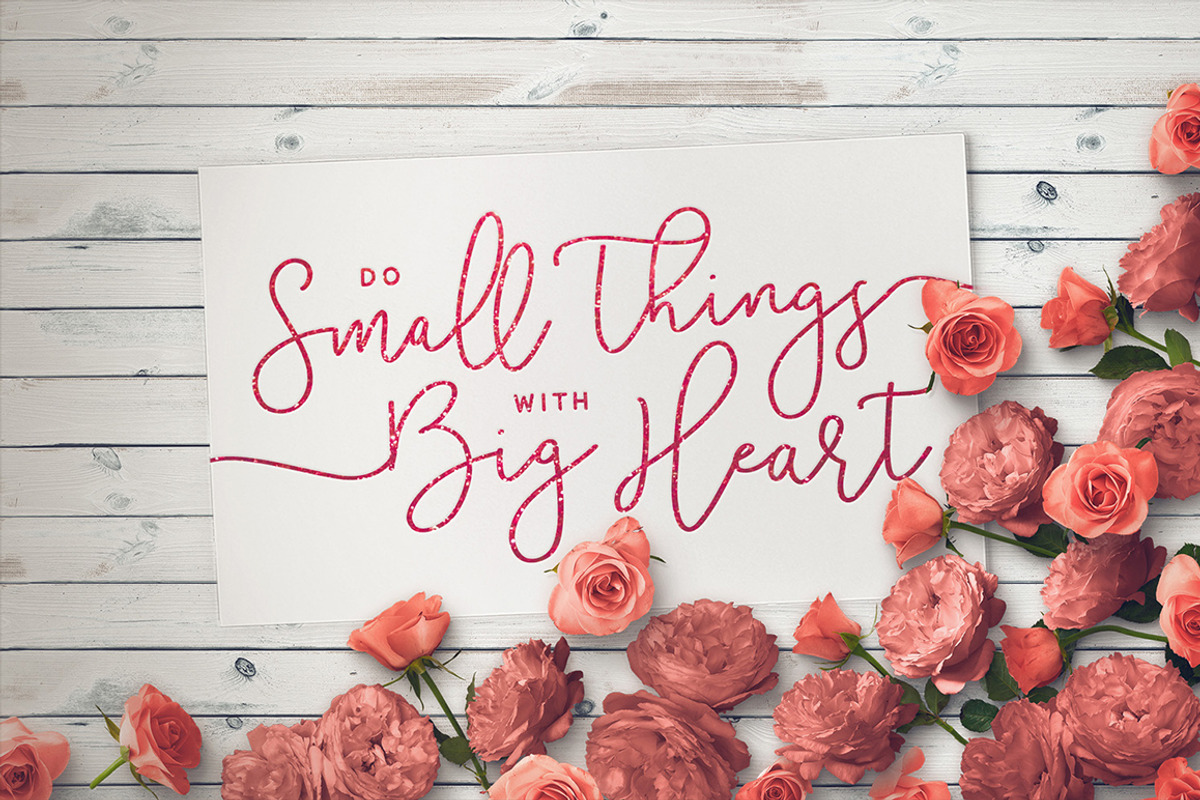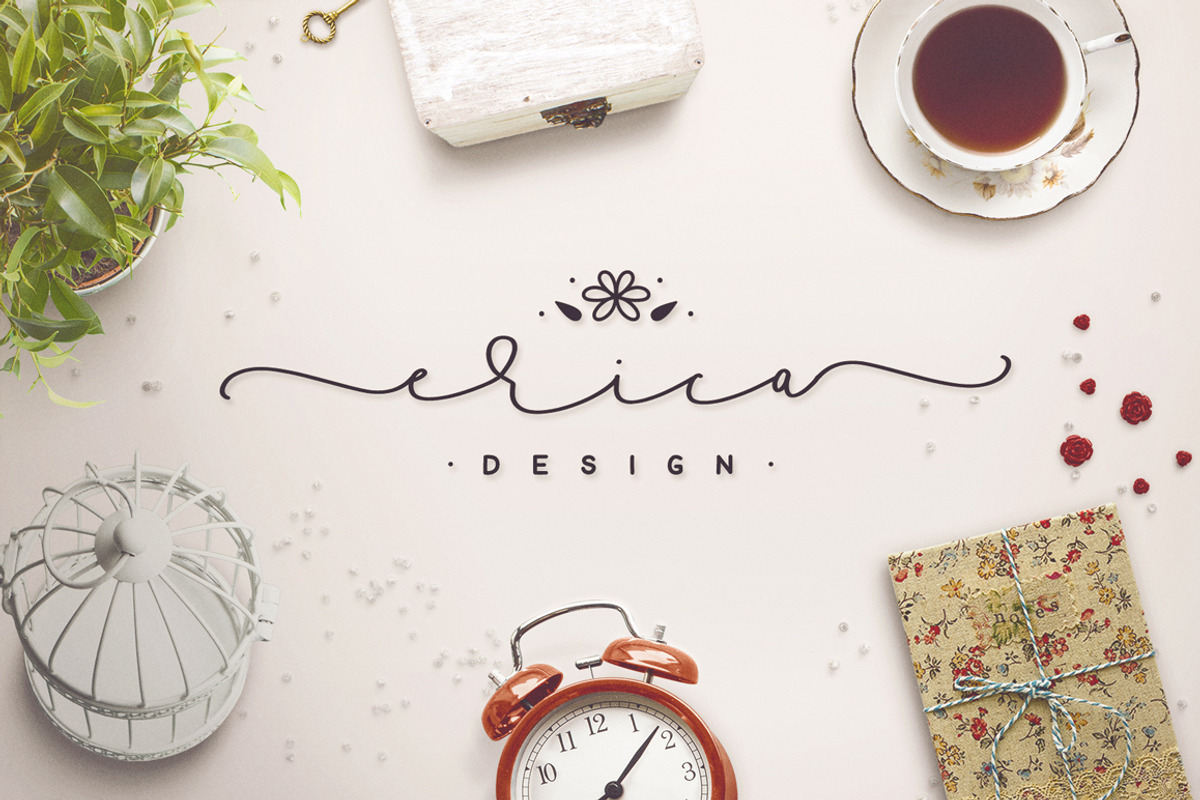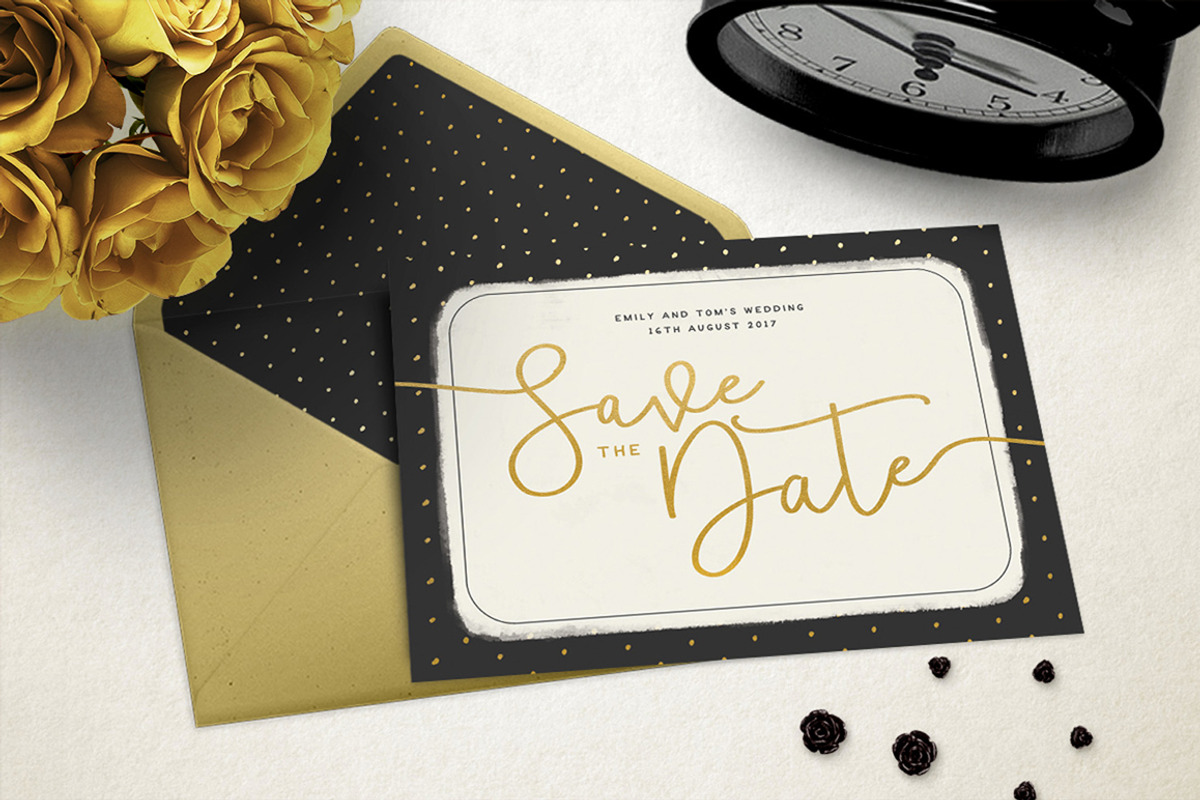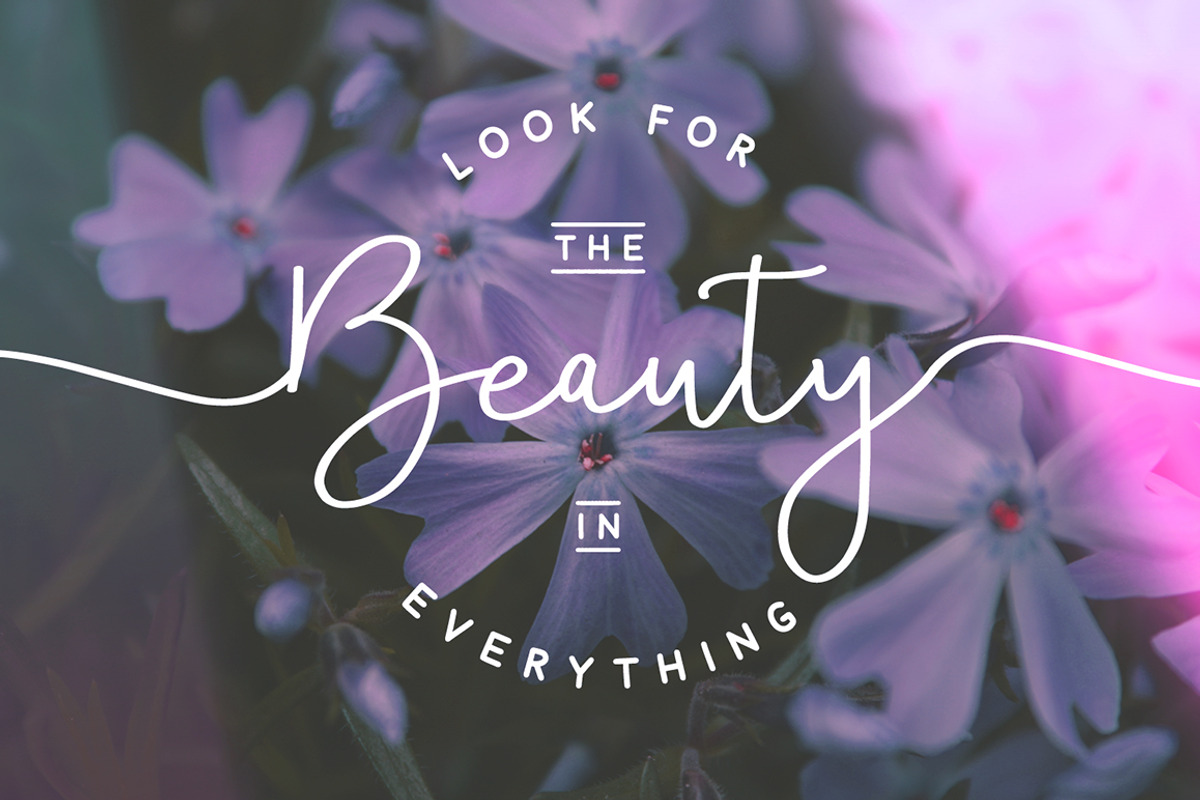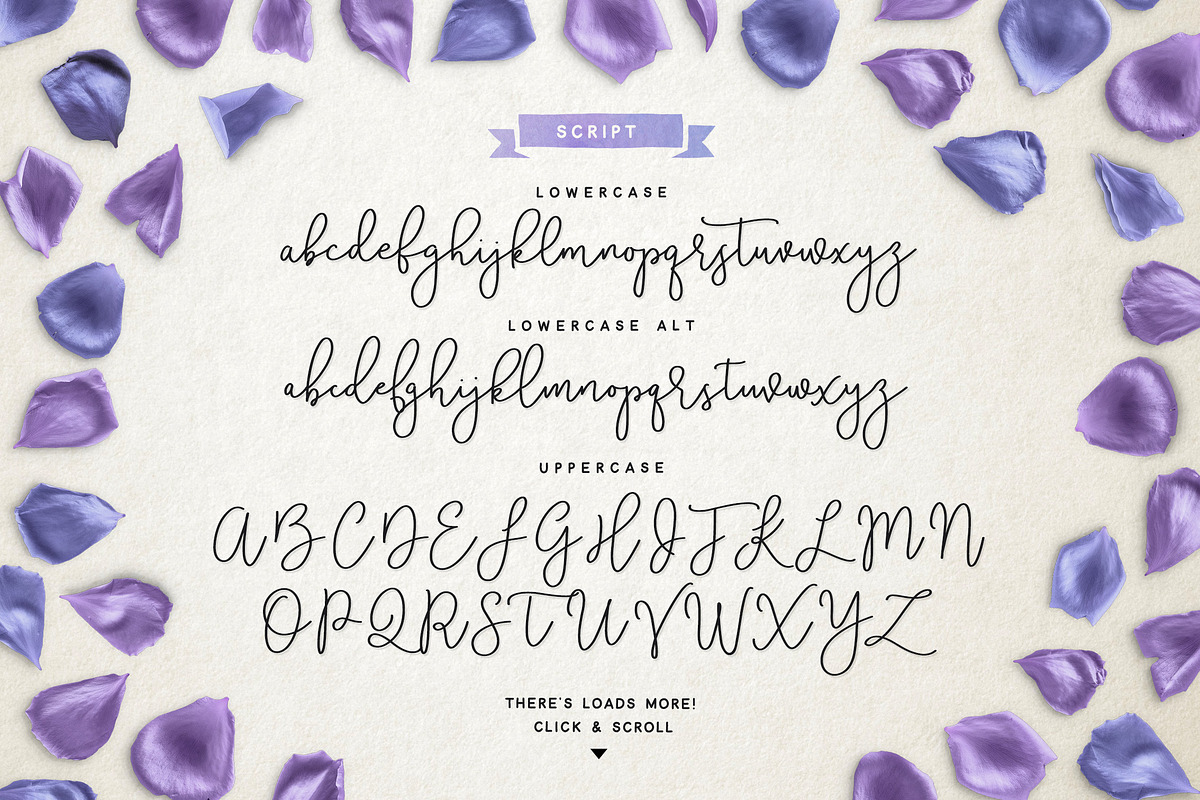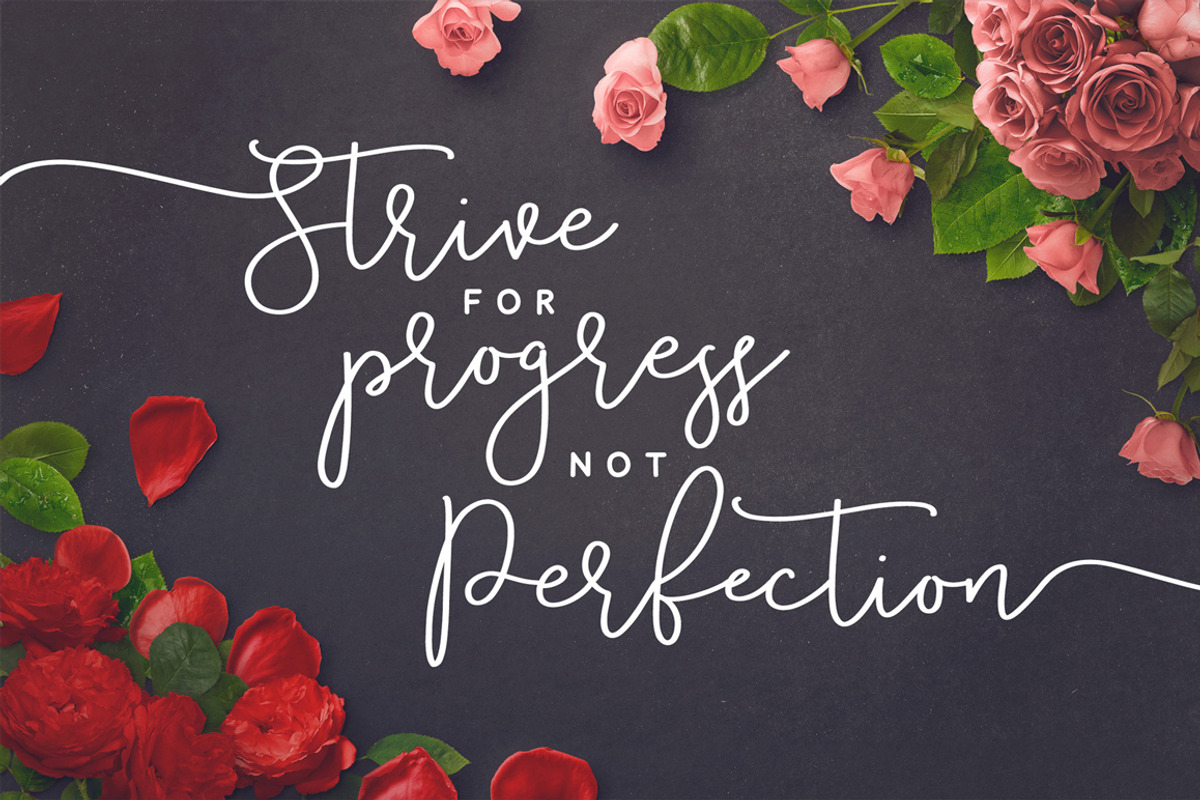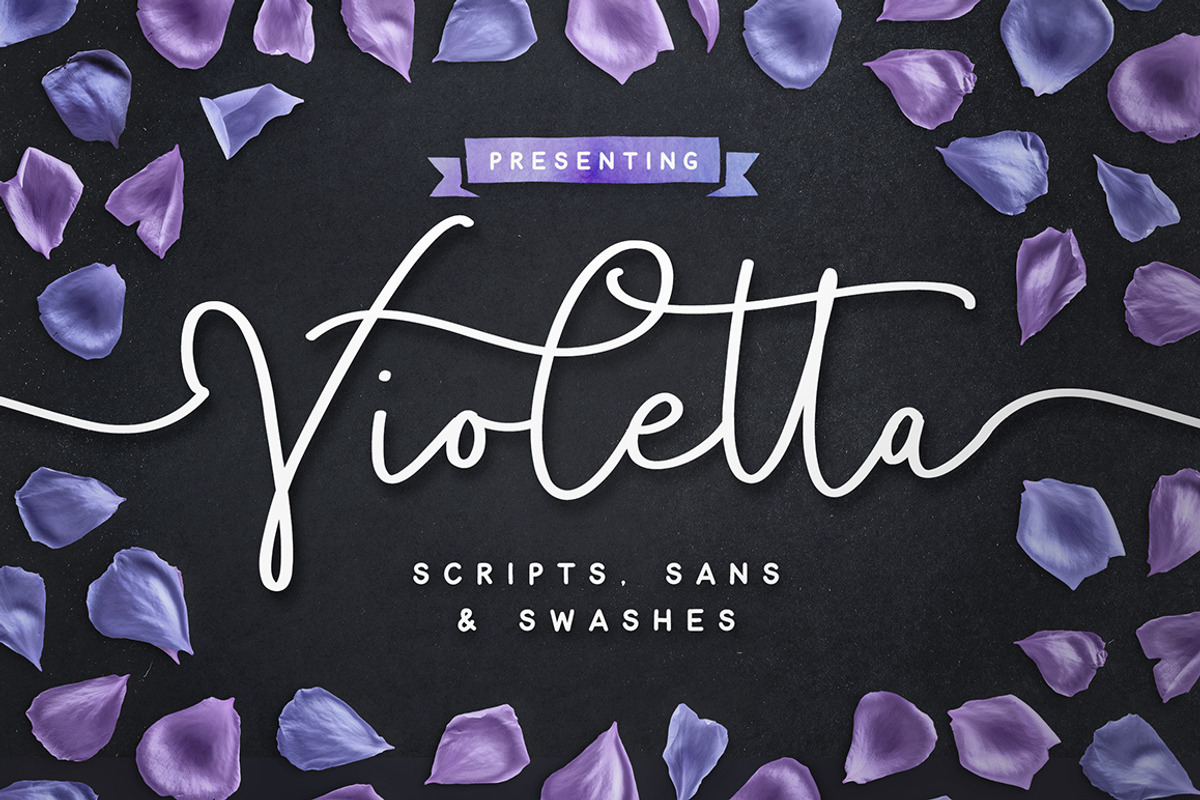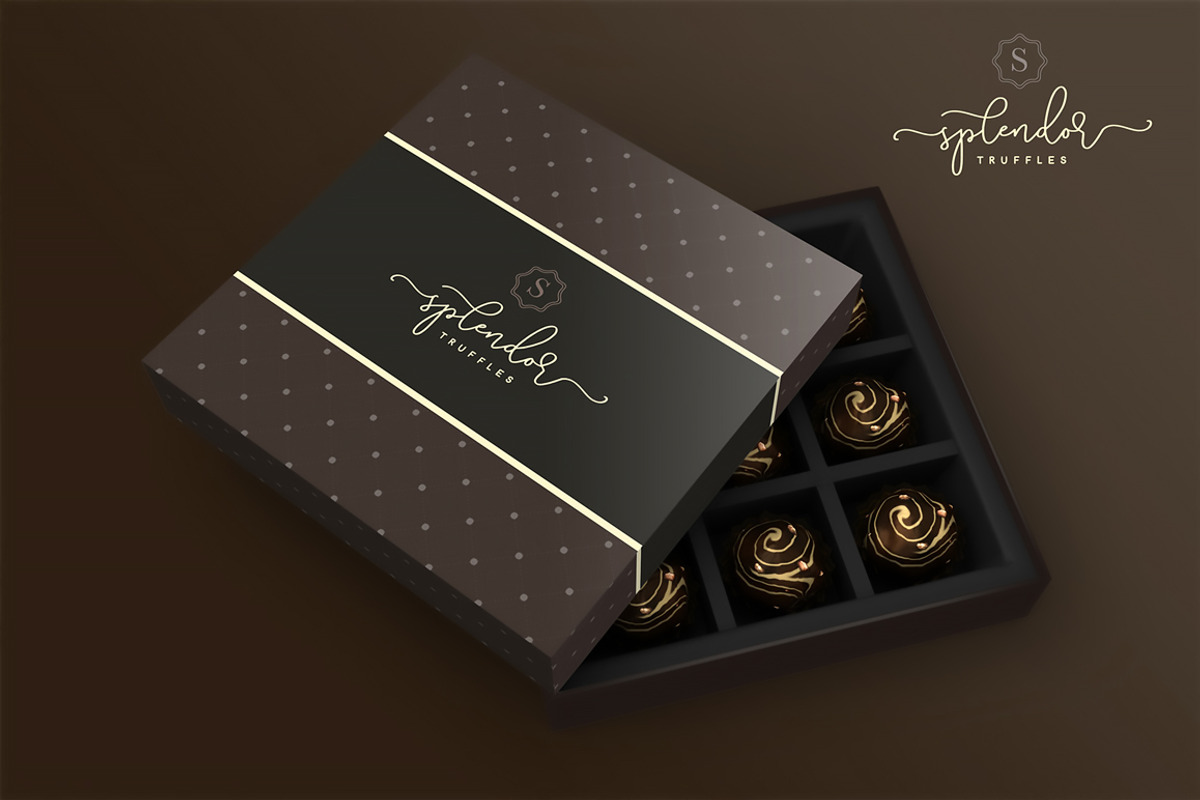
Violetta Font Pack
Violetta Font Pack by Sam Parrett is a font selected for branding, posters, packaging, typography.
- No worries there, I've also included a bold, hand-drawn simple sans font - the perfect smallprint companion for the cursive script, designed
- Violetta Script • A cursive font containing upper & lowercase characters.
- Several stylistic alternates and ligatures are also available, simply by turning on 'Stylistic Alternates' and 'Discretionary Ligatures' in
- Violetta Script Alt • This is a second version of Violetta Script, with a completely new set of lowercase characters.
- Simply type any uppercase letter before your 'Violetta Script' word to add a beginning-swash, and any lowercase letter after your word to cr
- Try this extended version of Violetta Script, the lowercase characters have elongated connective tails for a touch of extra class.
Why Violetta Font Pack is worth a look
Violetta Font Pack by Sam Parrett fits naturally into Branding, posters, packaging, typography.